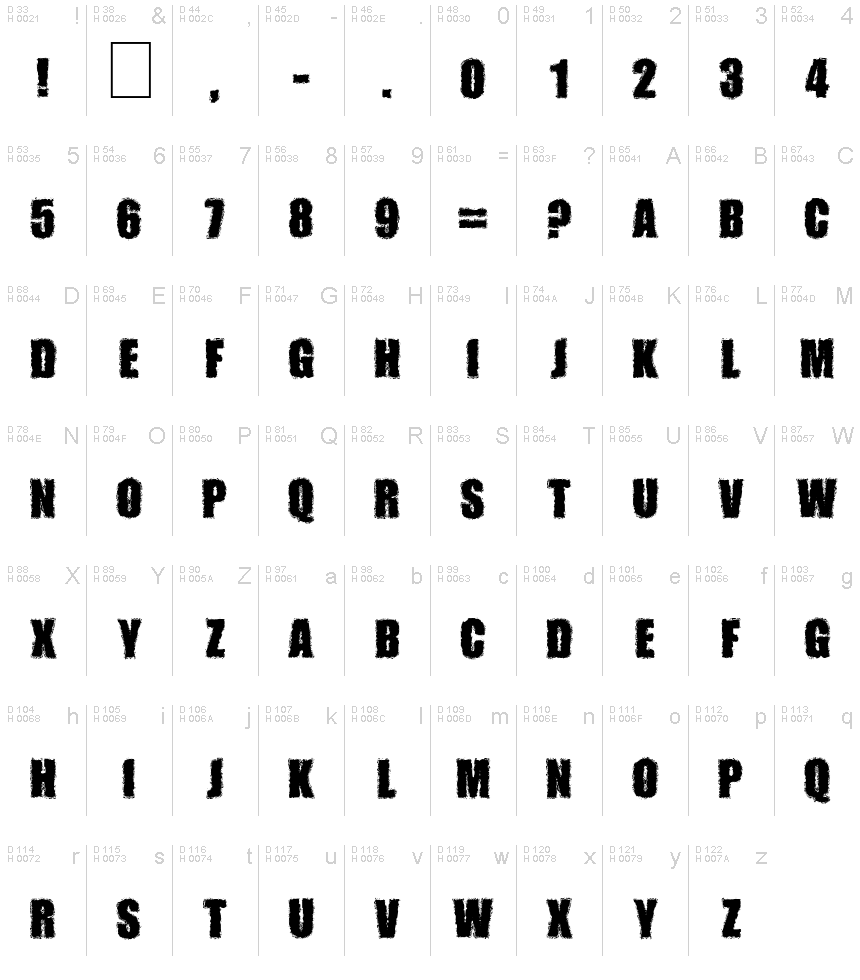
MONSTERZ
Monsterz is a striking display font that exudes a bold, distorted aesthetic. Designed by Jayde Garrow, this condensed typeface boasts an unapologetic, raw style that immediately commands attention.
The jagged, uneven letterforms evoke a sense of raw energy and a touch of the macabre, making Monsterz an ideal choice for horror-themed designs, heavy metal album covers, or any project seeking a bold, unconventional typographic statement. Its condensed width allows for impactful headlines and eye-catching accents, while the font's overall weight and robust character lend it a confident, imposing presence.
Monsterz is a versatile tool for designers seeking to make a powerful, memorable impression.